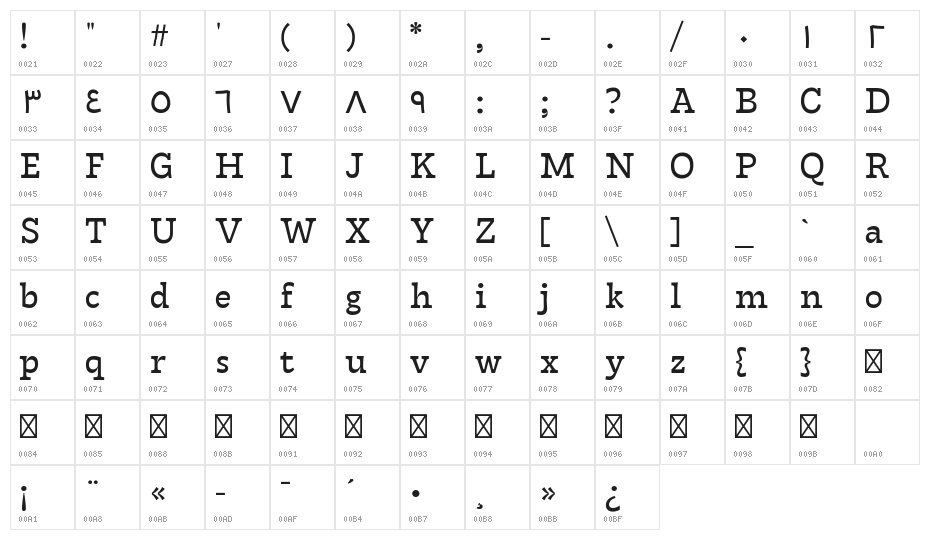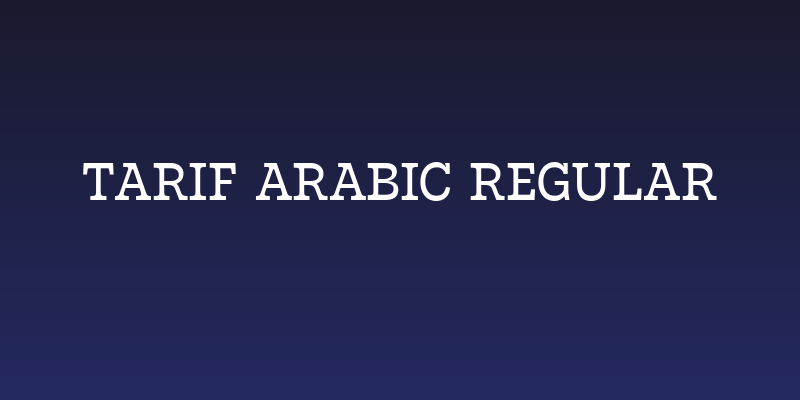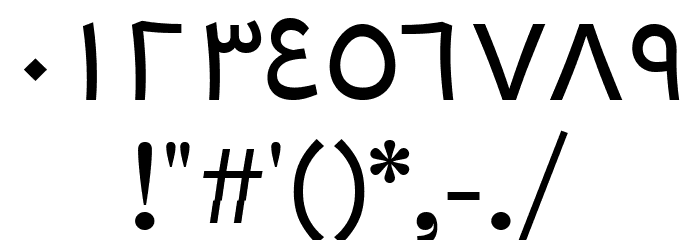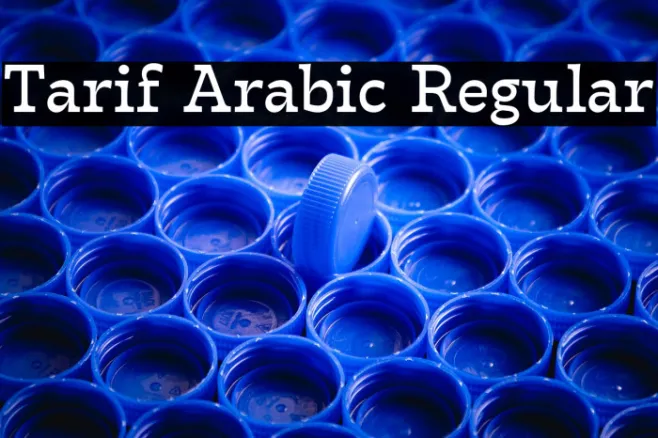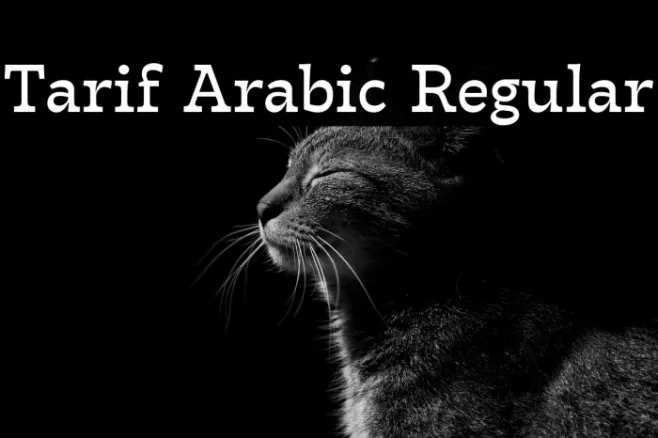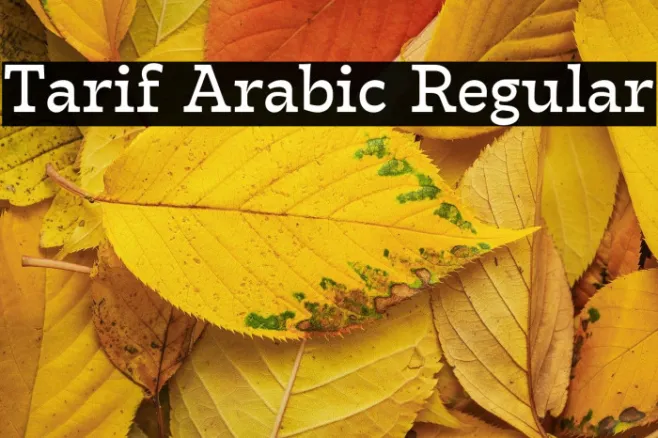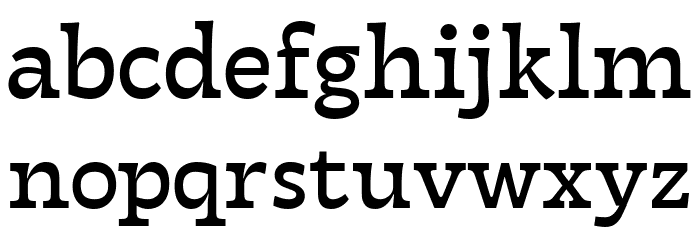
Tarif Arabic Regular Font
Tarif Arabic Regular Description
This font features a distinctive blend of traditional and modern elements, characterized by its bold, slab serif style. The uppercase letters are strong and commanding, with a uniform stroke width that adds to their bold appearance. The lowercase letters maintain a consistent style, offering a harmonious balance between readability and aesthetic appeal. The numerals and special characters are designed with the same attention to detail, ensuring a cohesive look across all text. This font's unique style is further enhanced by its medium contrast, which provides a subtle yet effective emphasis on each character. The overall design is both functional and visually appealing, making it suitable for a variety of applications.